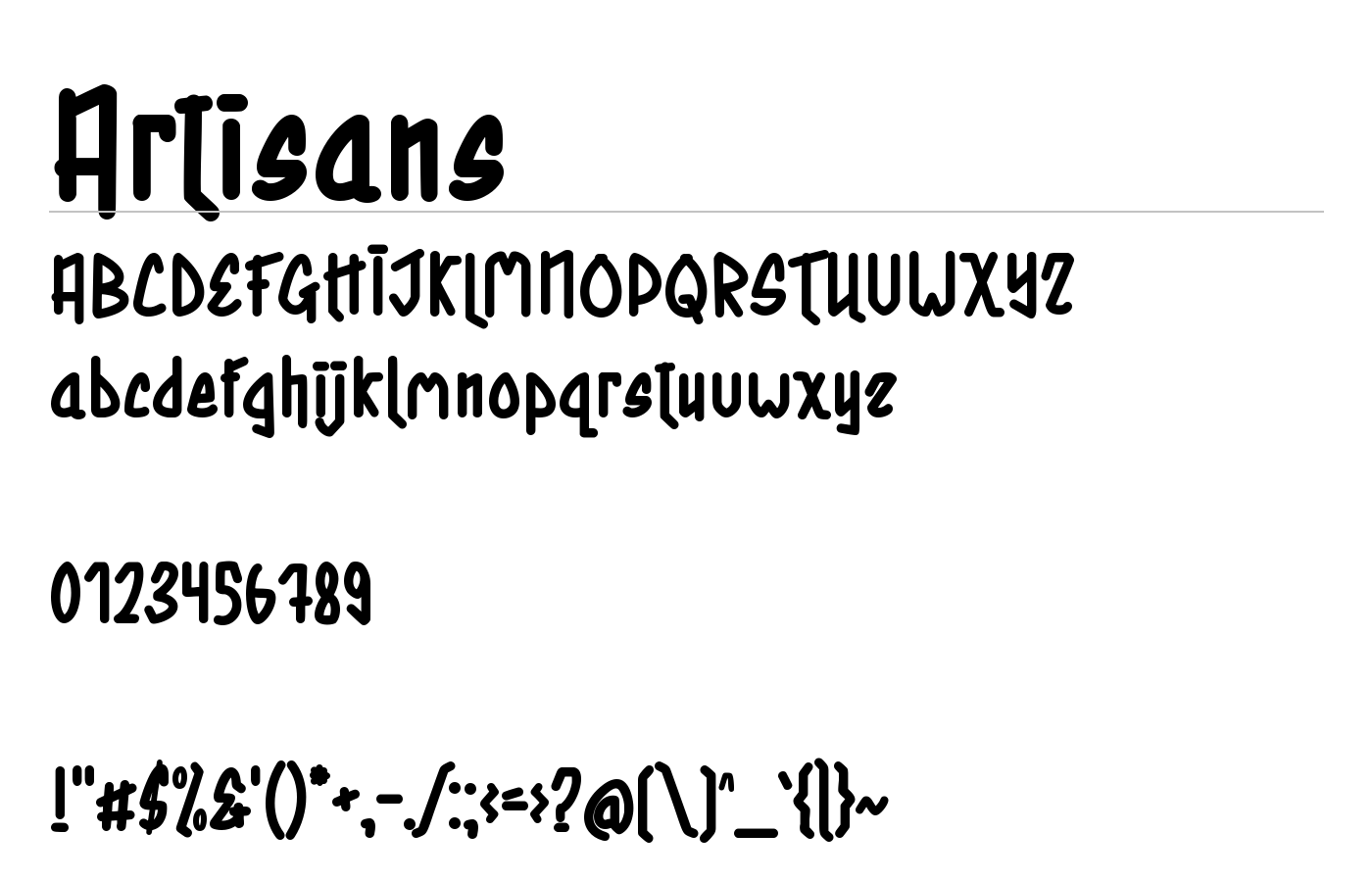
Artisans is a quirky sans serif font with a playful, handcrafted feel, featuring irregular strokes and unique letter shapes that add character and warmth. Its moderately narrow width and medium weight make it suitable for creative branding, posters, and casual headlines where a distinctive, personable style is desired. This font works best in contexts that benefit from a fun, approachable vibe rather than formal or highly professional tones.
Artisans Font